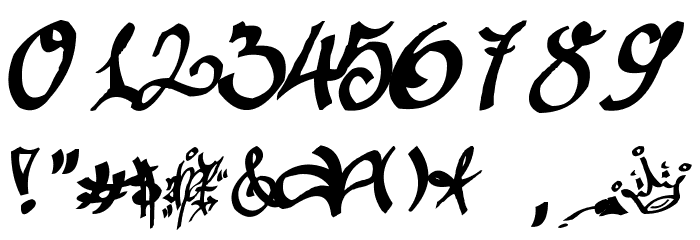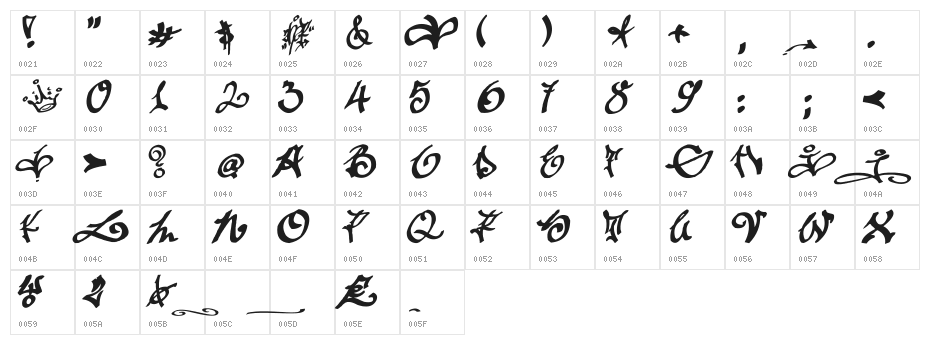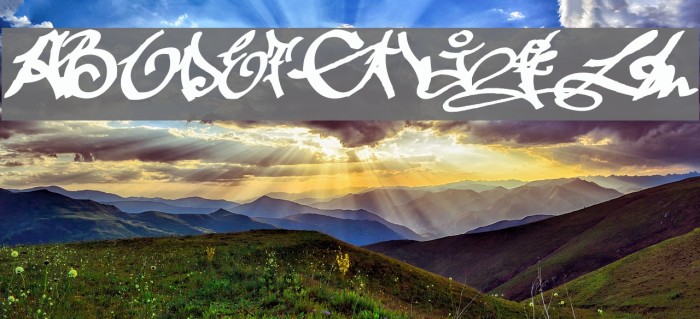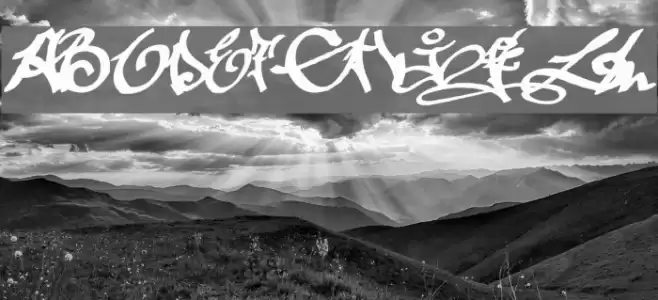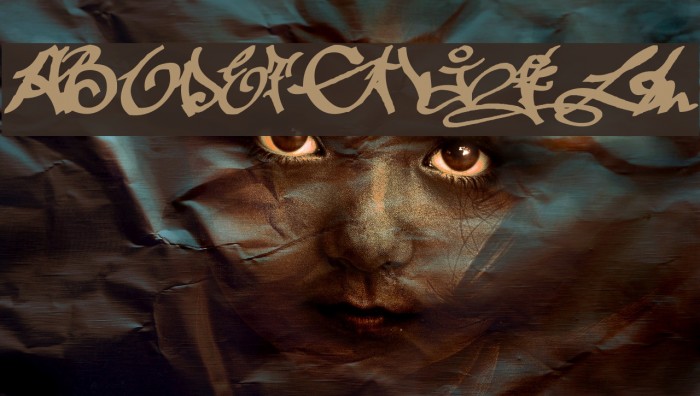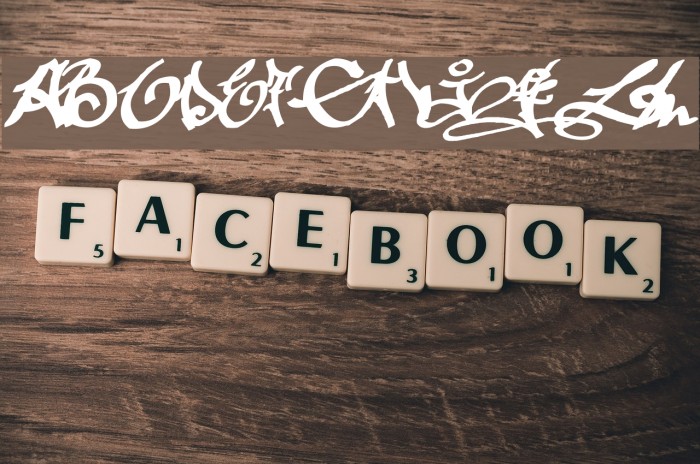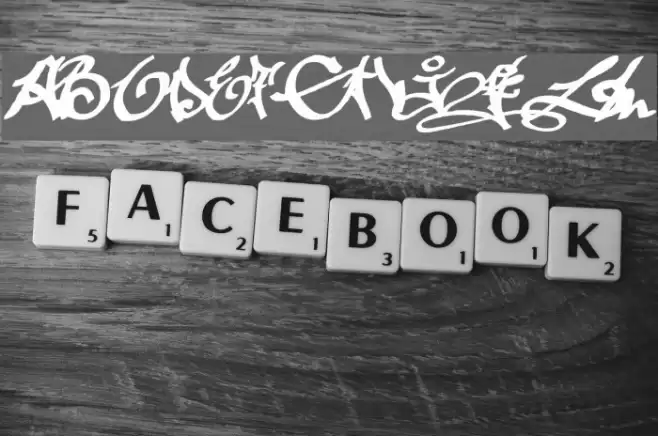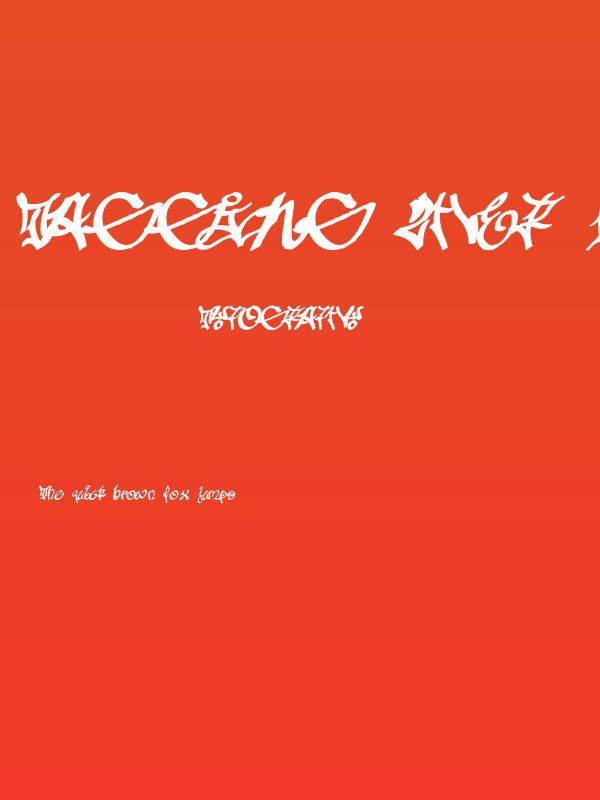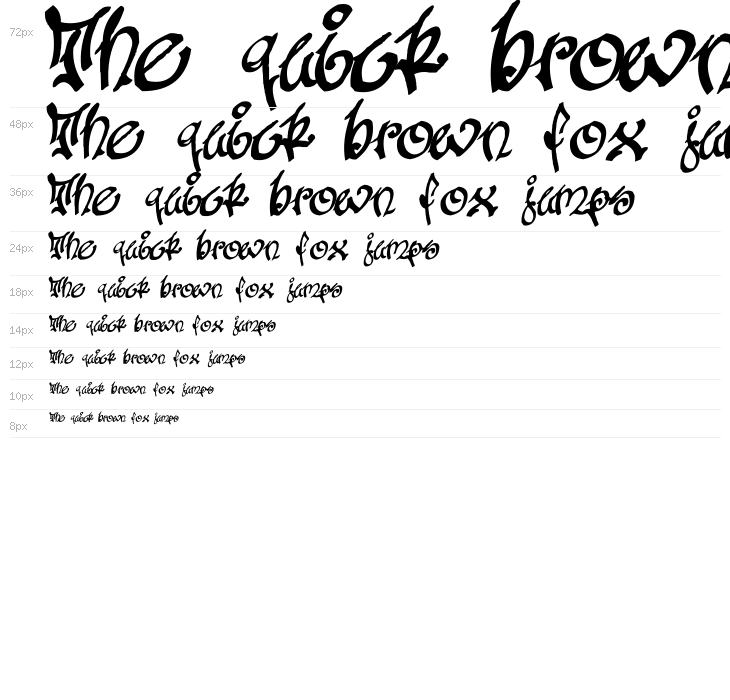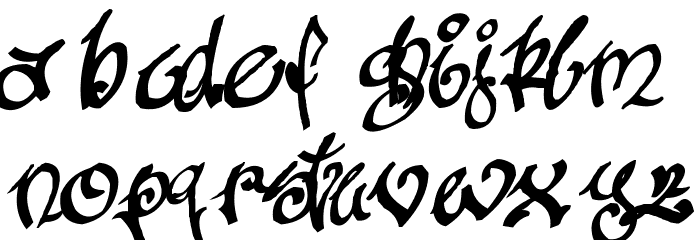
Tagging Zher 1 Font
Tagging Zher 1 Description
This font exhibits a highly stylized and artistic design, characterized by its intricate and flowing script. The letters are interconnected with elaborate swirls and loops, giving it a dynamic and energetic appearance. The uppercase letters are bold and dramatic, while the lowercase letters maintain a consistent fluidity. Numbers and special characters follow the same ornate style, making the font suitable for creative and decorative purposes. The overall impression is one of elegance and flair, with a touch of rebelliousness.
| Proposed Projects | Ideal for tattoo designs, album covers, graffiti art, and creative branding projects. |